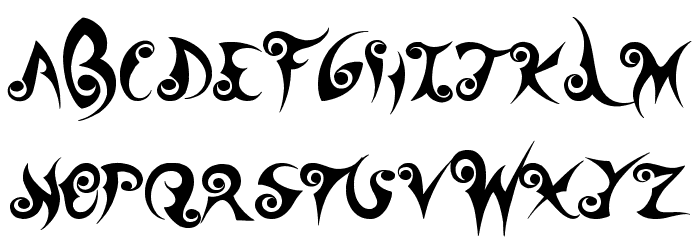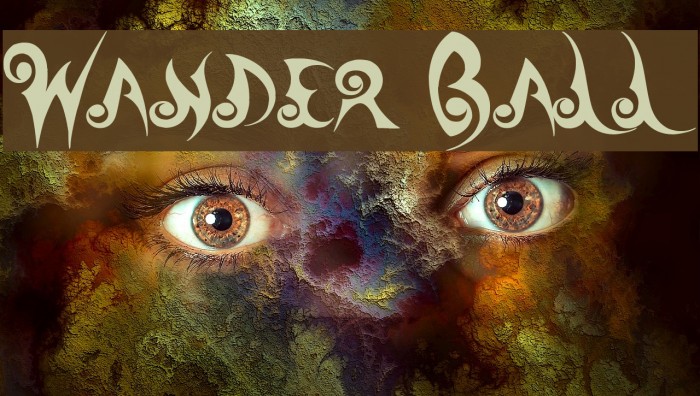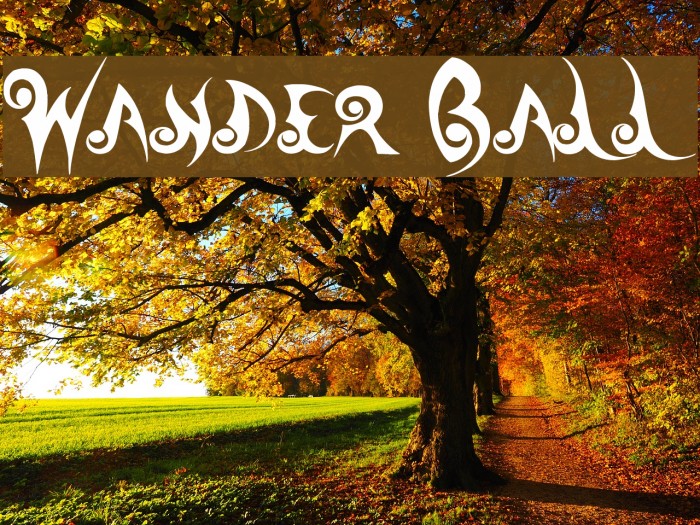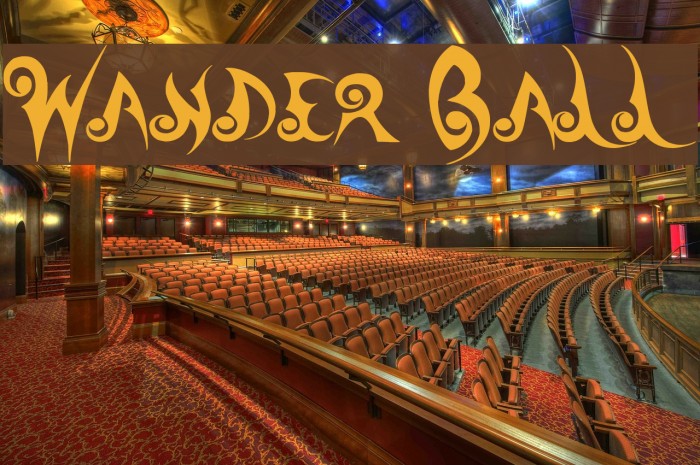
Wander Ball Font
This font features a highly decorative and whimsical style, characterized by its bold, swirling elements and intricate detailing. The uppercase and lowercase letters share a consistent design theme, with exaggerated curves and playful flourishes that give it a unique, artistic flair. The numerals and special characters are equally ornate, maintaining the overall aesthetic. This font is ideal for projects that require a touch of fantasy or creativity, such as invitations, posters, or branding for artistic ventures.
A decorative and whimsical font with bold, swirling elements and intricate detailing.
- Proposed Projects: Ideal for invitations, posters, artistic branding, and fantasy-themed designs.